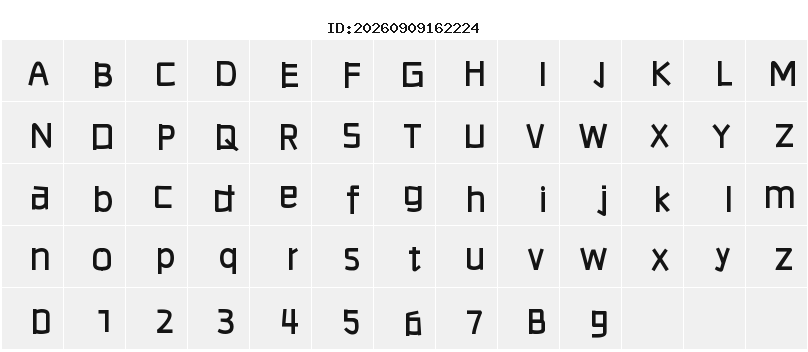
字潮海报报 Preview
• Font Name: 字潮海报报
• Full Font Name: 字潮海报报
• Manufacturer: 潍坊字潮文化传媒有限公司
About 字潮海报报.ttf
字潮海报报.ttf is a modern, elegant sans-serif font designed for ultimate readability and visual harmony. Perfect for branding, headlines, web design, and print materials.